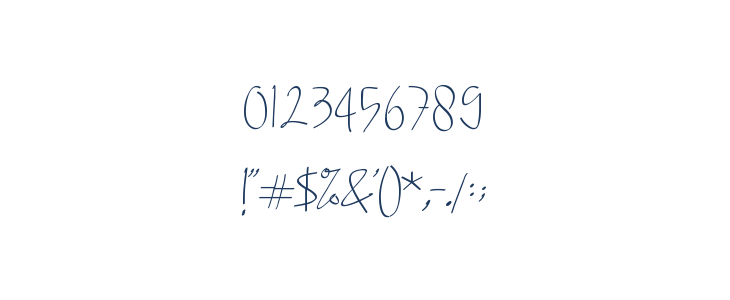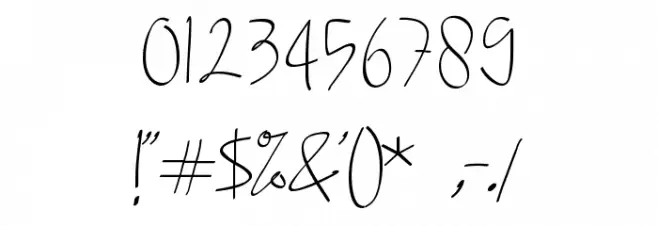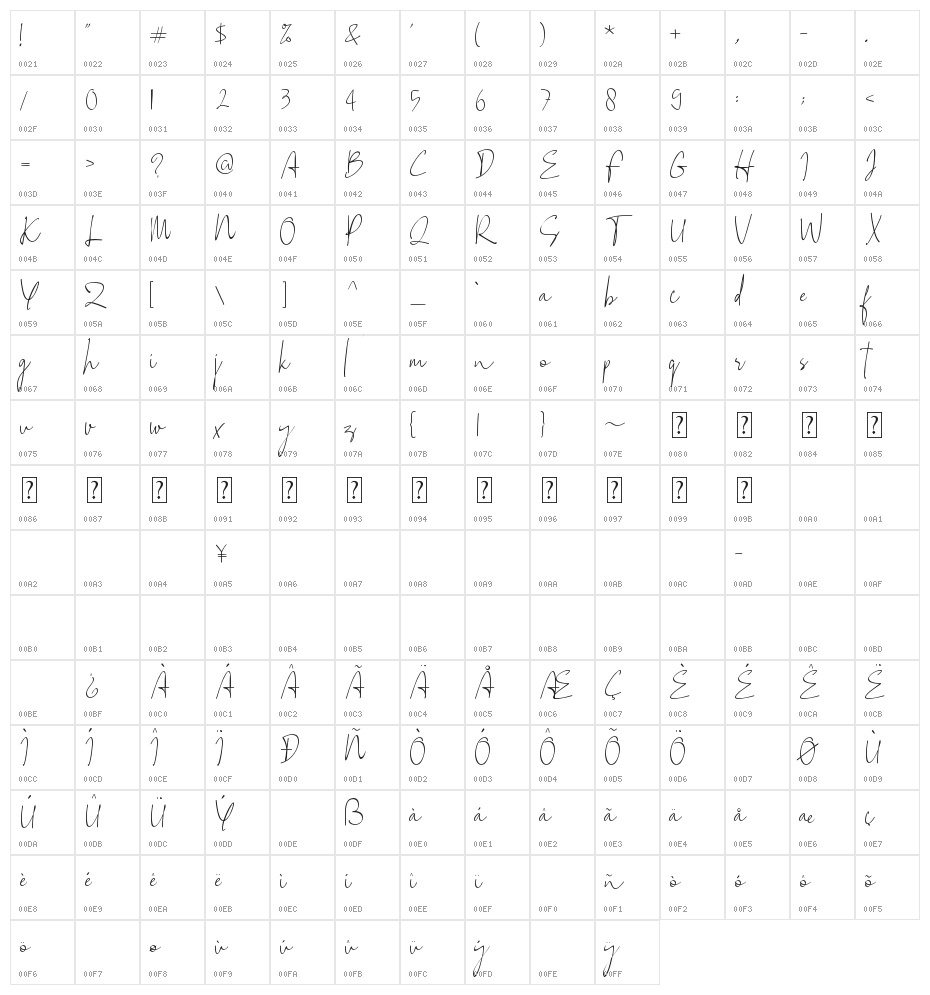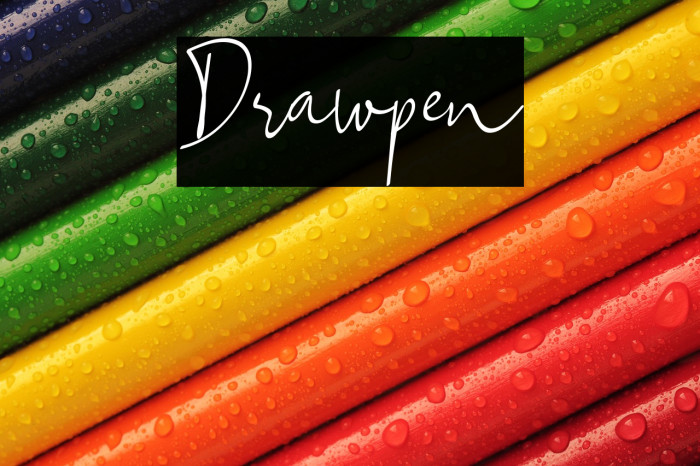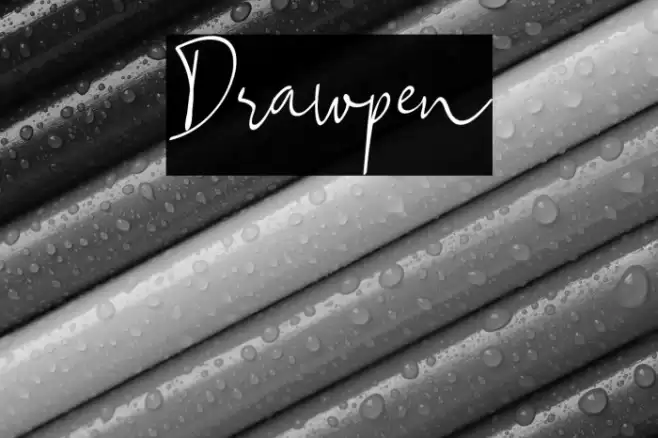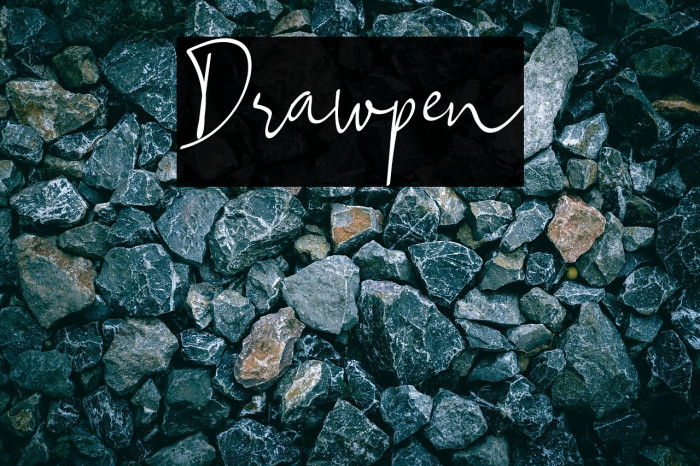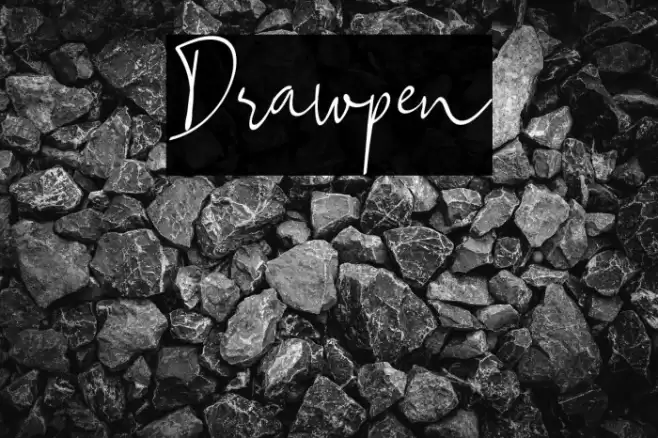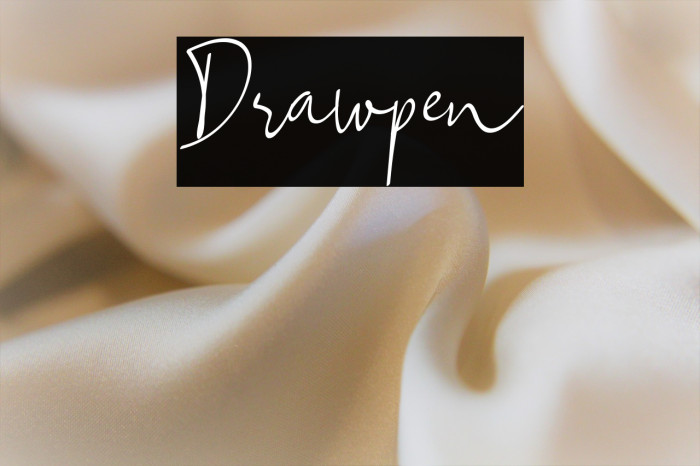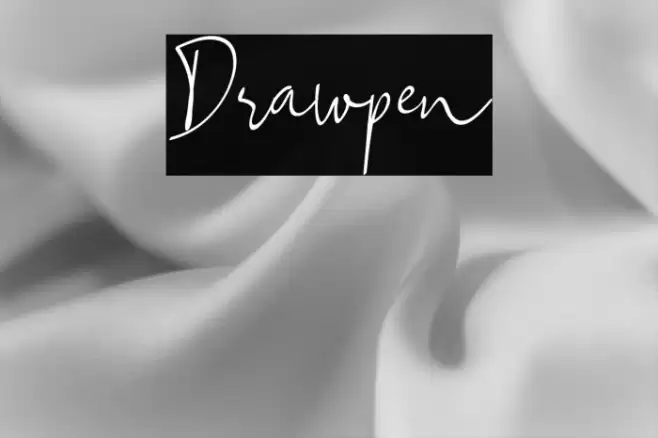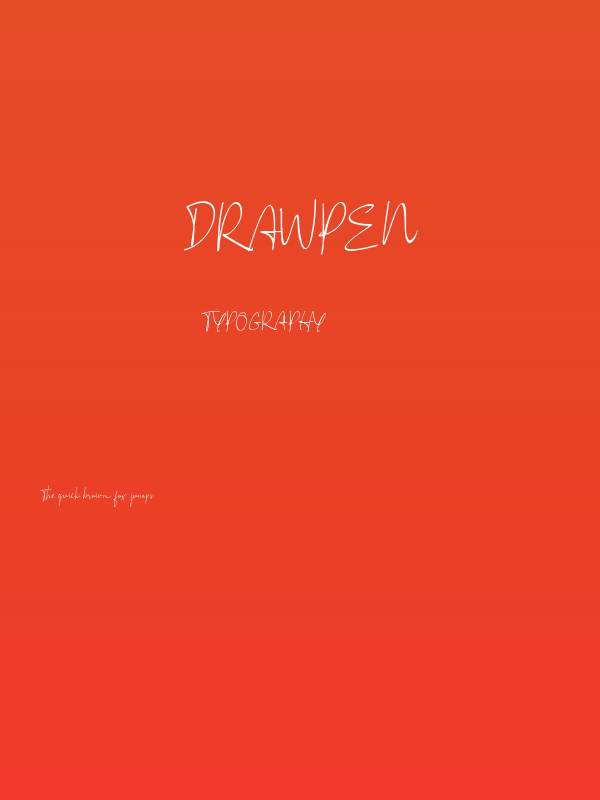
Drawpen Font
Drawpen Description
This font exudes a lively and dynamic handwritten style, characterized by its fluid and slightly irregular strokes that mimic the natural flow of handwriting. The uppercase letters are tall and slender, with a slight slant that adds to the casual elegance of the typeface. The lowercase letters maintain a consistent style, with smooth curves and a playful touch that enhances readability. Numbers and special characters are crafted with the same attention to detail, ensuring a cohesive look throughout. The overall appearance is both modern and approachable, making it suitable for a variety of creative applications.
| Use Case | Logos, Invitations, Greeting cards |
| Proposed Projects | Ideal for personal branding, invitations, greeting cards, and creative projects that require a personal touch. |